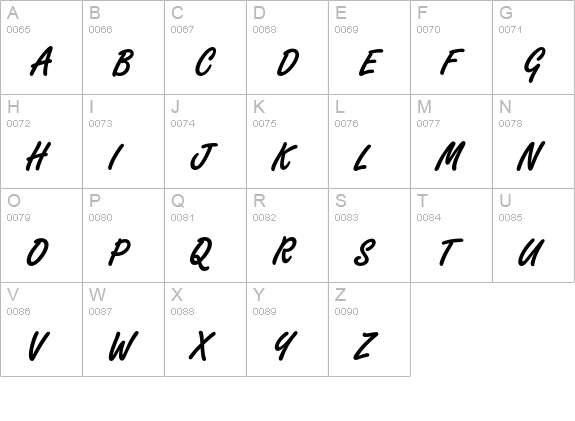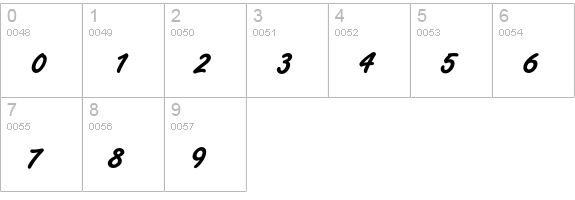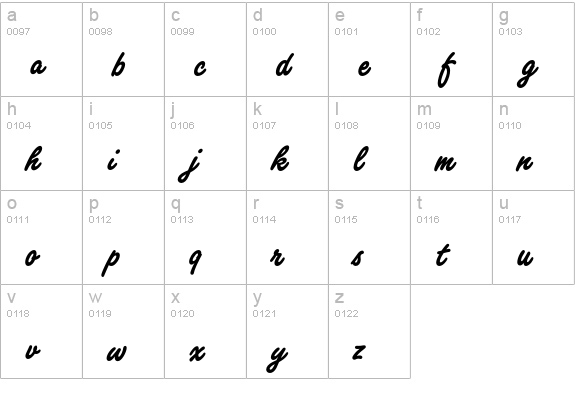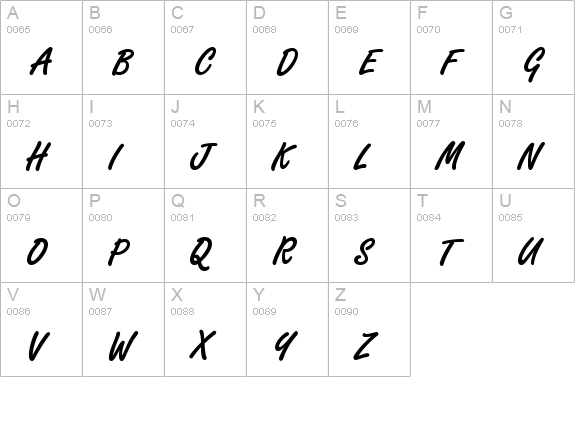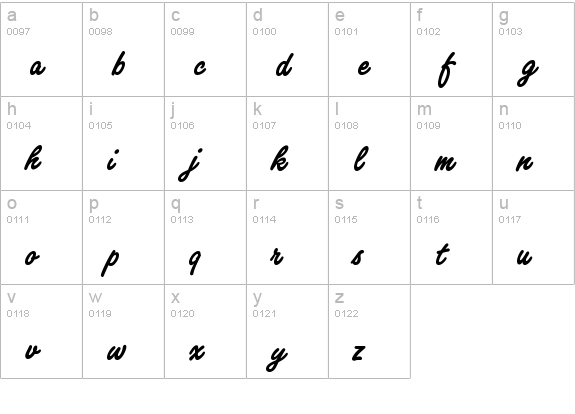
FreestyleScriptEF-BoldAlt Font Details
FreestyleScriptEF-BoldAlt font is a modern and stylish typeface that exudes a sense of creativity and sophistication. Its bold and alternative design makes it stand out in any project, adding a touch of flair and uniqueness. The smooth curves and elegant strokes of FreestyleScriptEF-BoldAlt create a harmonious flow that is perfect for a wide range of creative applications. What sets FreestyleScriptEF-BoldAlt font apart is not only its striking appearance but also its accessibility. This font is available for free download at FontsMarket.com, making it easy for designers and creatives to incorporate it into their projects without any cost barriers. Whether you're working on a branding project, a poster design, or a website, FreestyleScriptEF-BoldAlt font will elevate your work with its distinctive style and versatility. Download it now and unleash your creativity with this exceptional typeface.